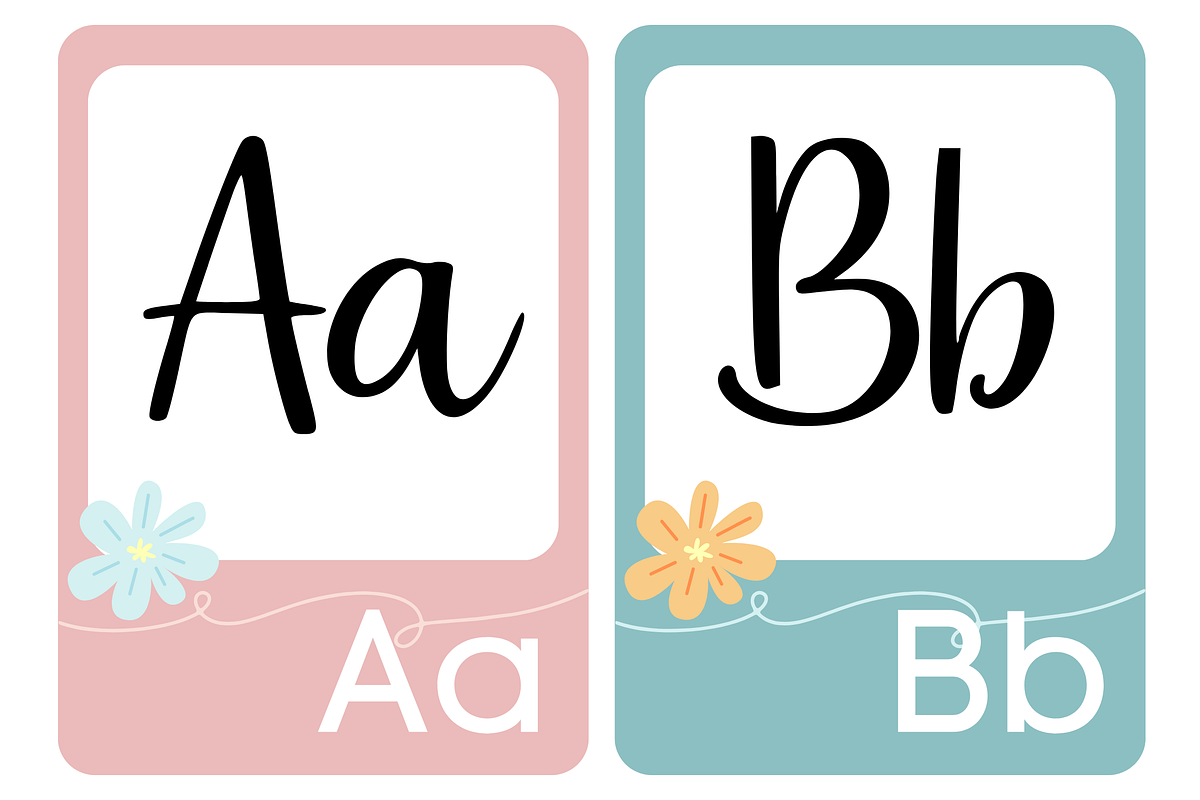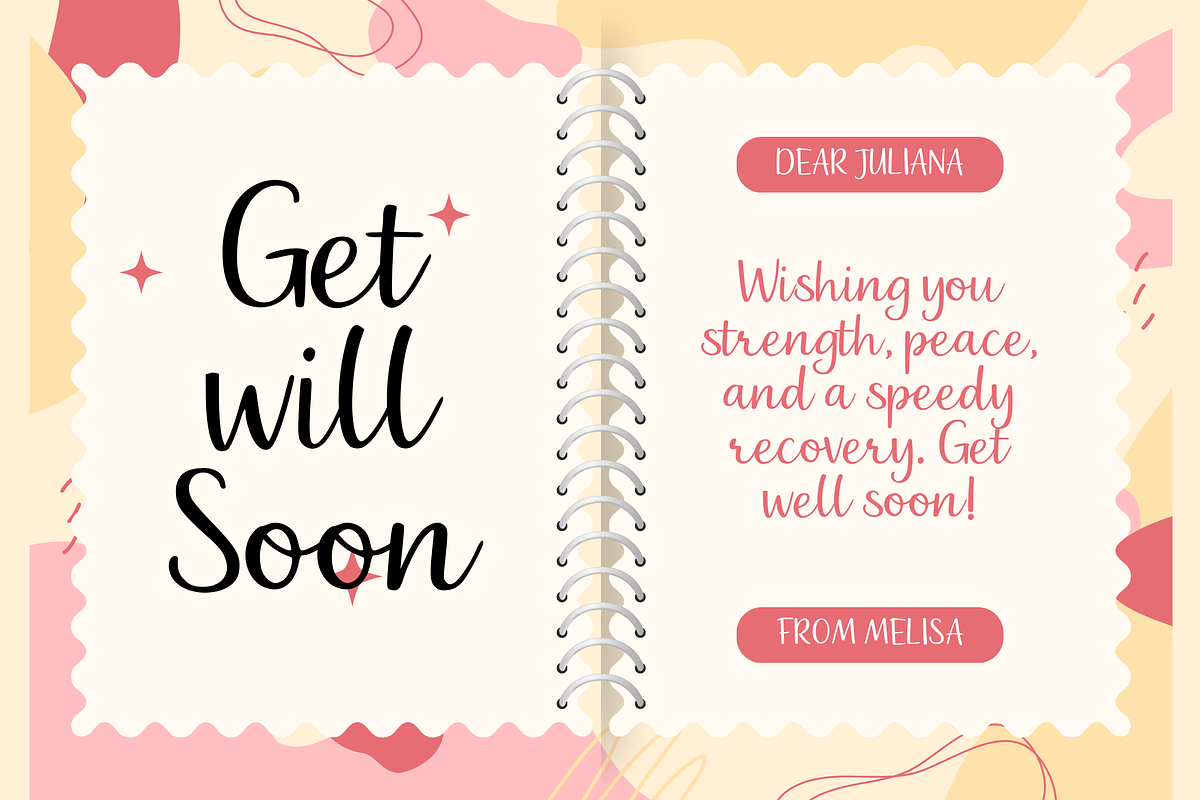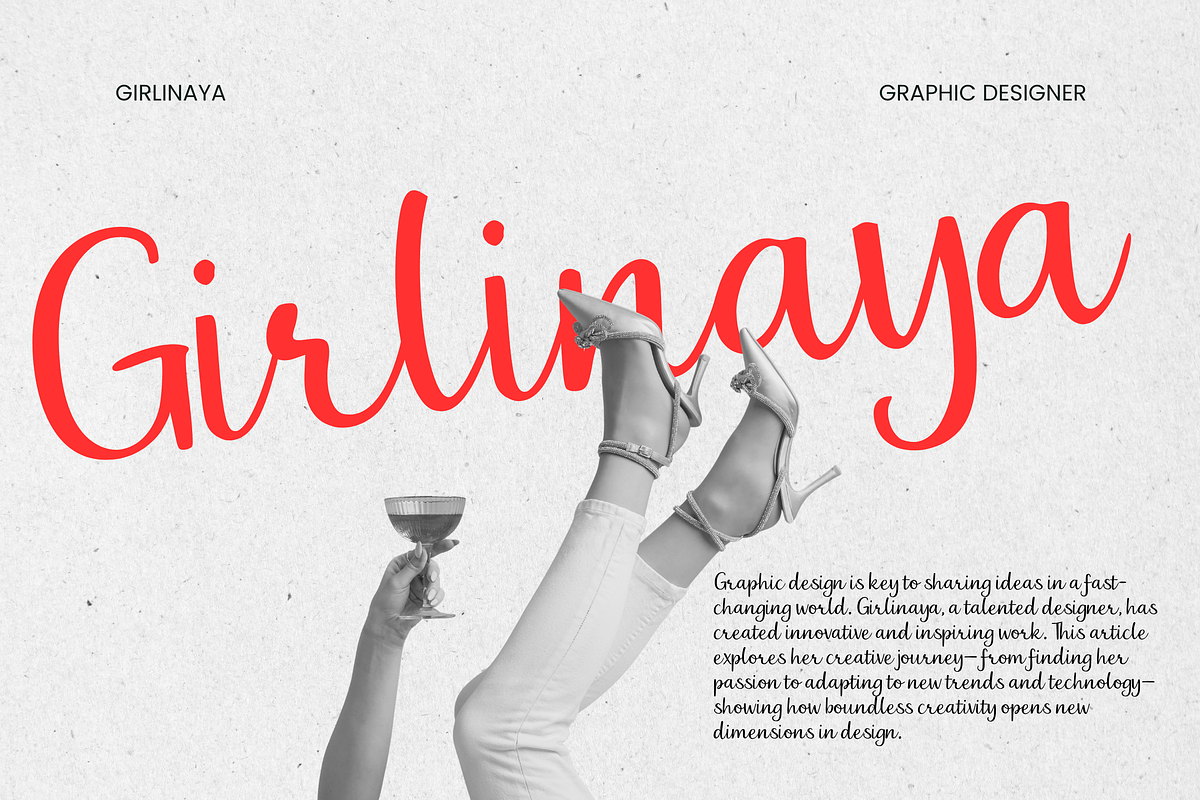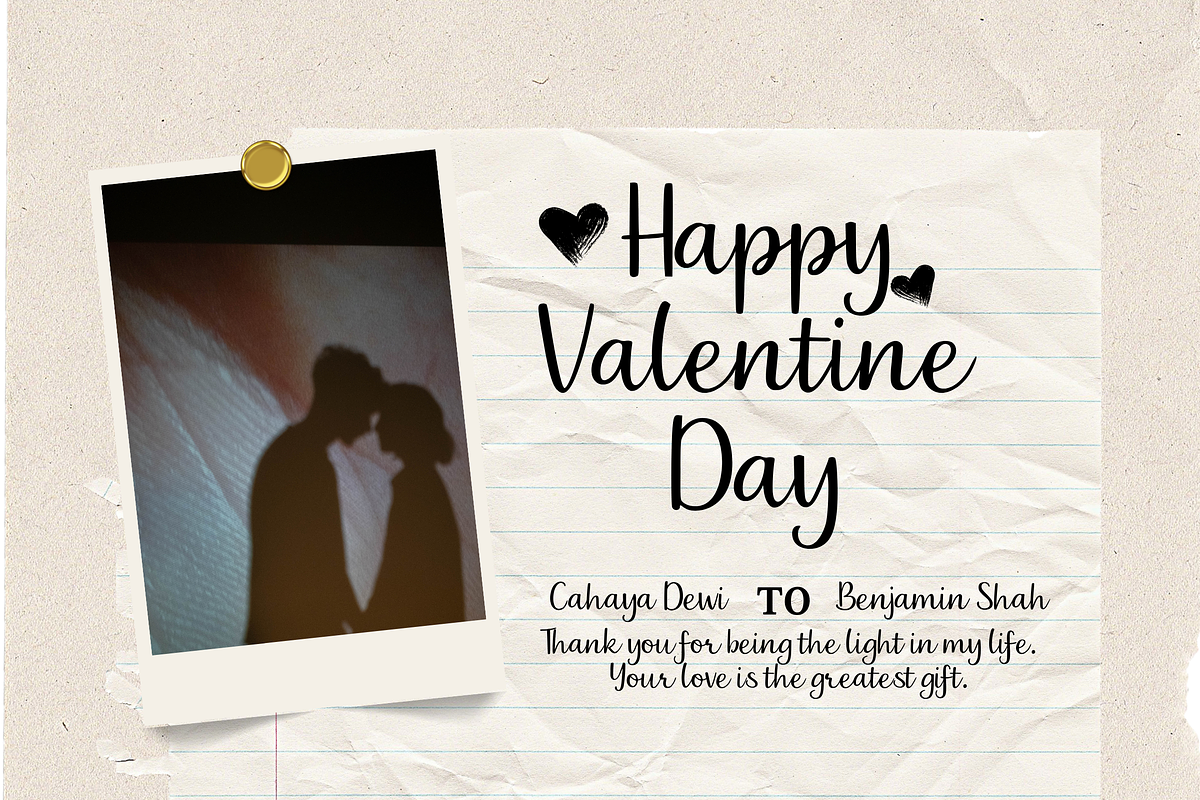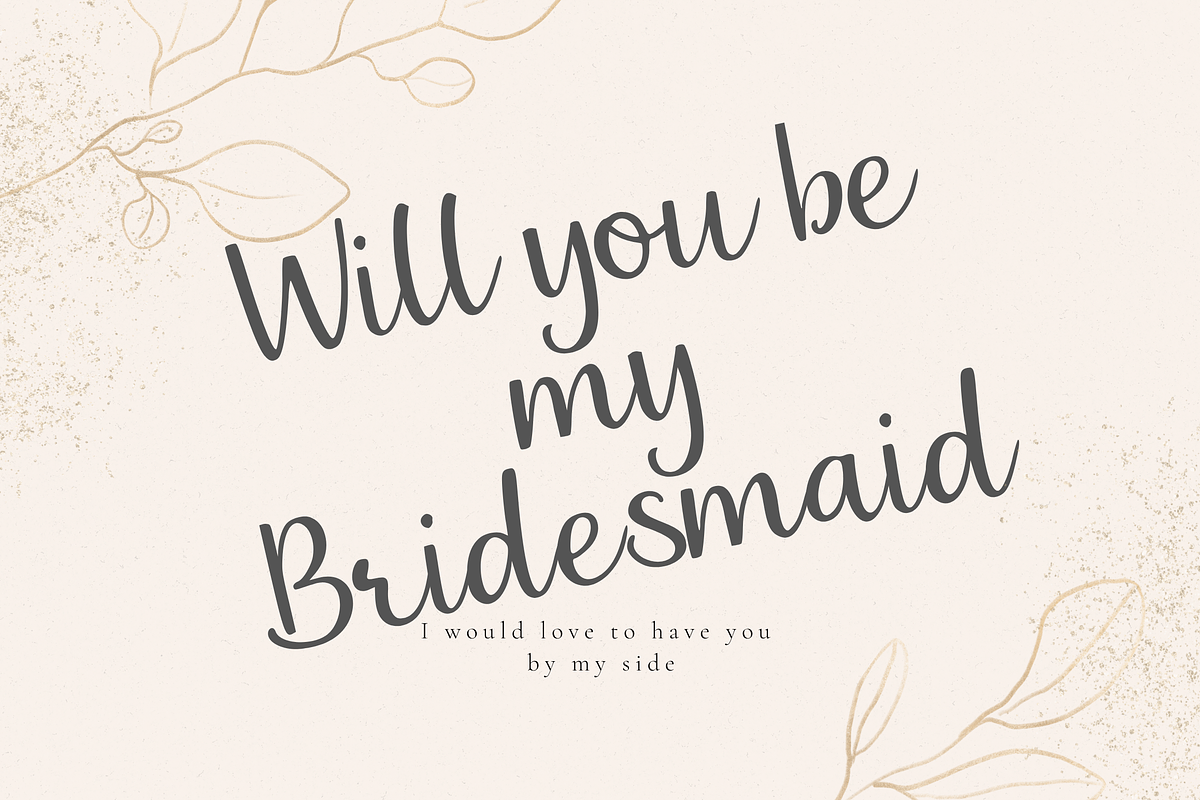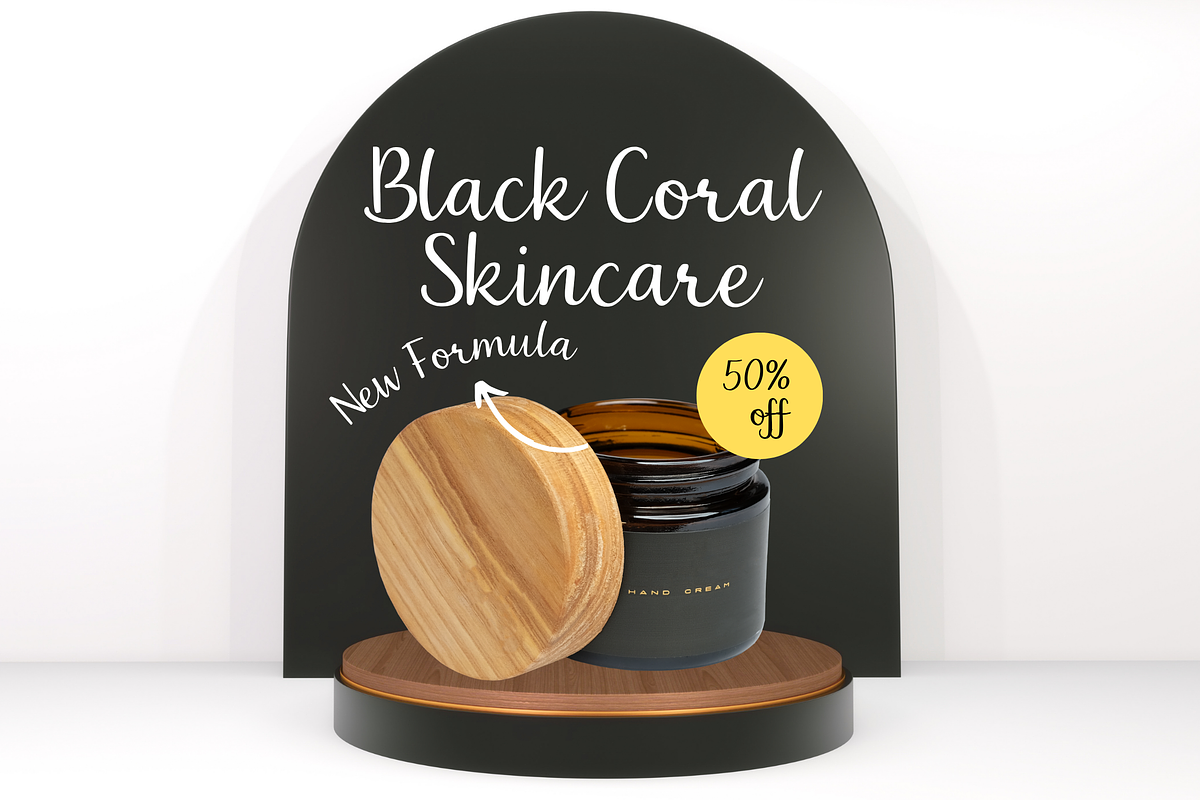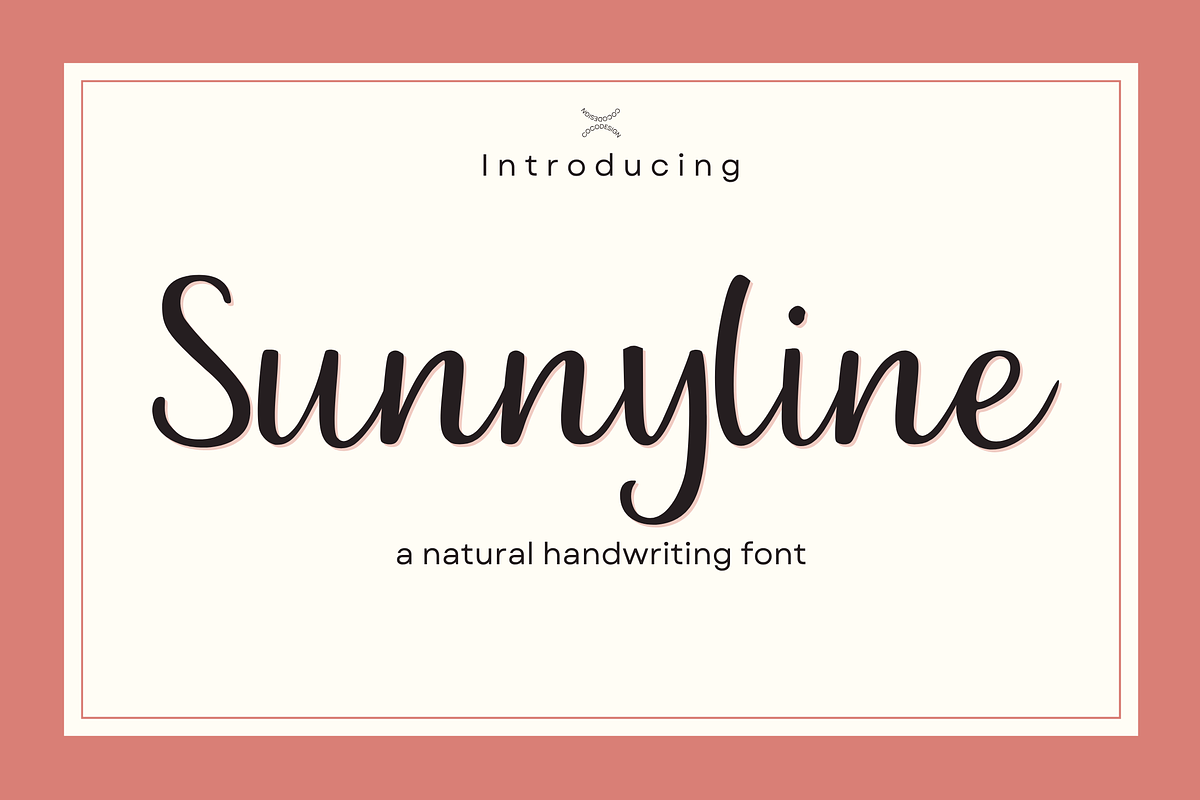
Sunnyline — A Natural Handwriting
Sunnyline — A Natural Handwriting Font
Sunnyline is a smooth and elegant handwritten font that brings a natural flow to every design. With its clean strokes and gentle curves, it feels personal yet refined — perfect for branding, wedding invitations, logos, quotes, and social media posts.
Its simplicity makes it versatile and timeless, ideal for both modern and classic designs. Add a touch of warmth and authenticity to your creative projects with Sunnyline.